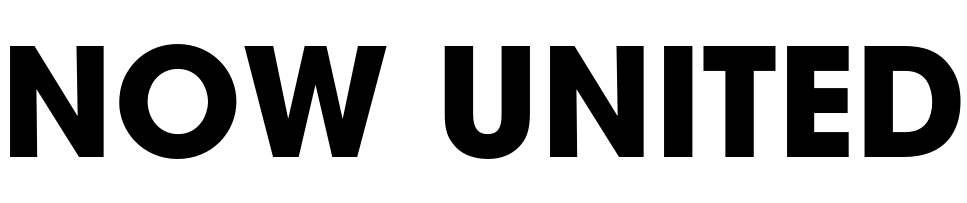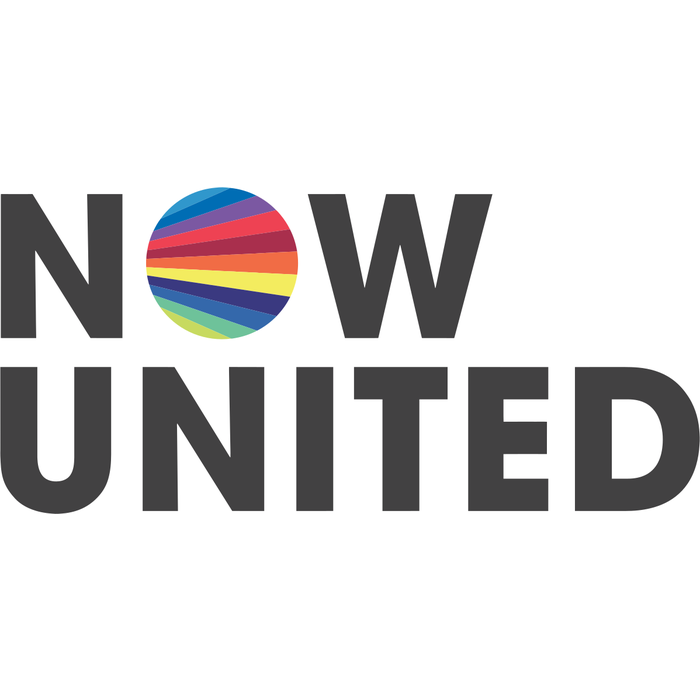
Now United Font
Fonts in UseNow United is a global pop group formed in 2017 by music mogul Simon Fuller. The group consists of 18 members from 18 different countries, and their music is known for its upbeat and diverse sound.
The pop group's logo features ITC Avant Garde Gothic, a geometric sans serif font created by Herb Lubalin and Tom Carnase in 1970, based on Lubalin's design for Avant Garde magazine. To learn more about the font please check here.